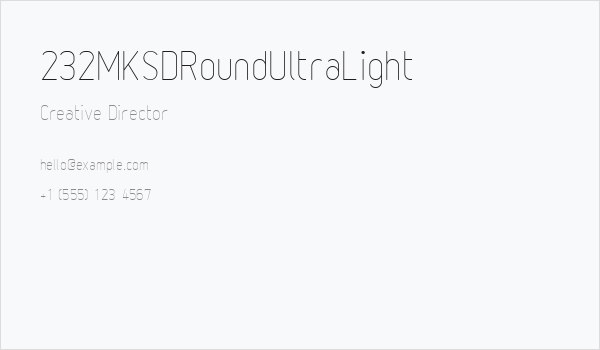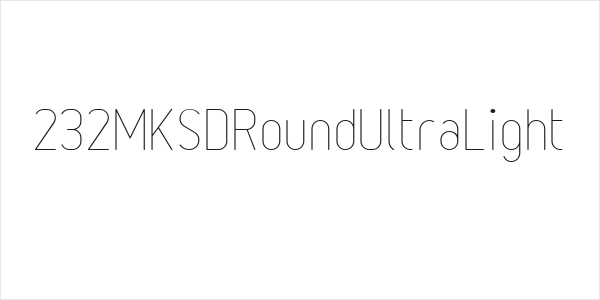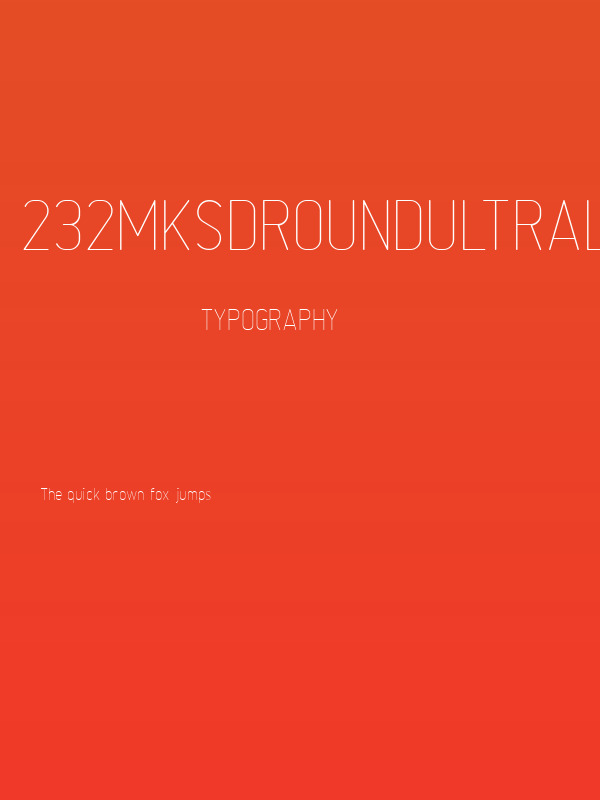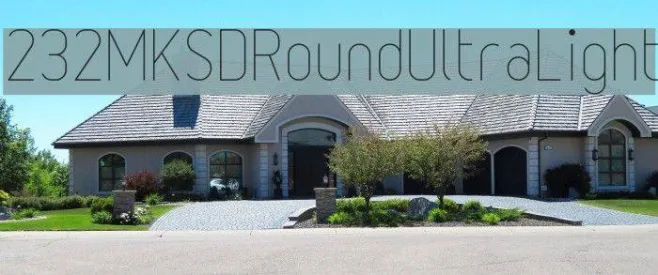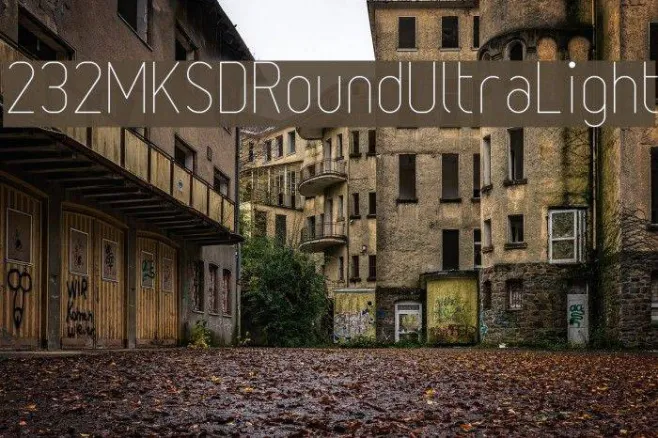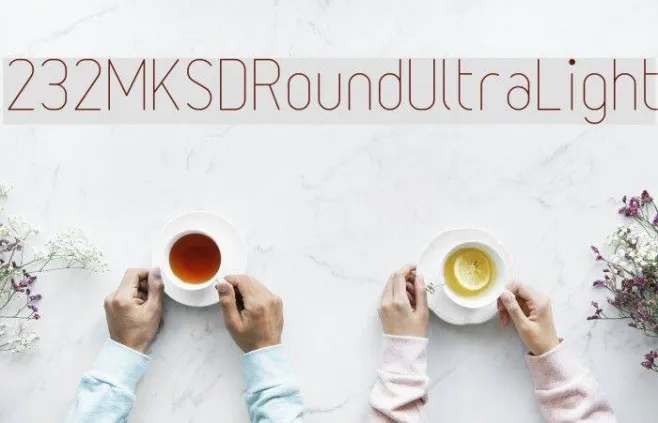
232MKSDRoundUltraLight Font
232MKSDRoundUltraLight Description
This font features a sleek and modern design with ultra-light strokes that give it an airy and minimalist appearance. The characters are rounded, contributing to a friendly and approachable feel. The uppercase and lowercase letters maintain a consistent height, enhancing readability and uniformity. The numerals are clear and distinct, making them suitable for various applications. Special characters are included, each designed with the same thin, rounded style, ensuring cohesion across all text elements. This font is ideal for projects that require a clean and contemporary look.
| Proposed Projects | Ideal for branding, digital interfaces, minimalist posters, and modern web design. |